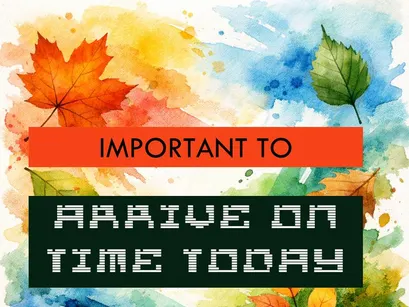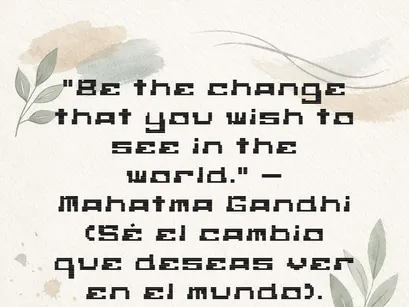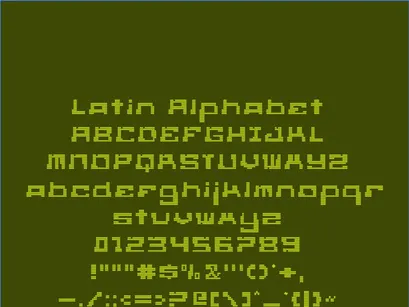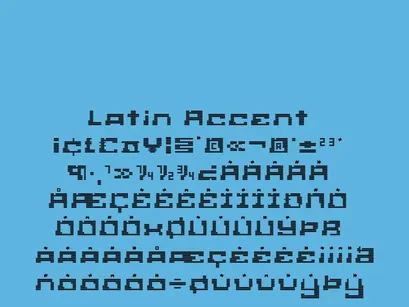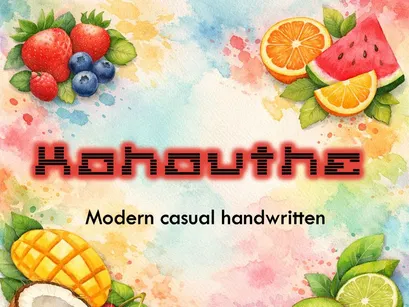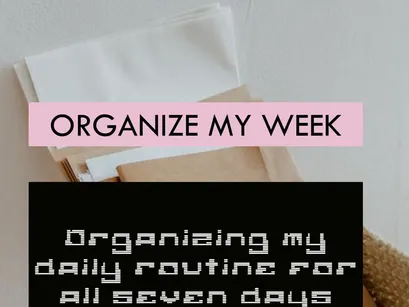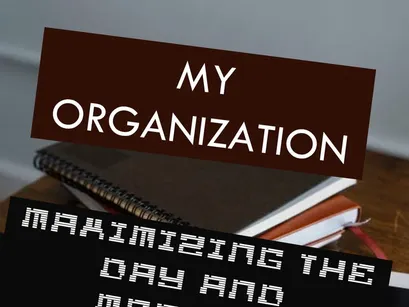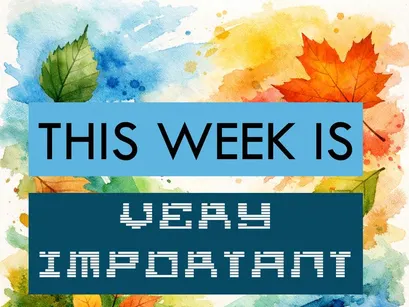
Kohouthe – Modern Casual Handwritten Font (TTF)
Kohouthe is a modern, casual handwritten typeface with a blend of digital and artisanal qualities. Its square shapes and steady rhythm evoke a sense of both organization and creativity, making it ideal for projects that seek a balance between structure and a natural feel.
Perfect for planners, motivational quotes, artisanal branding, eco-friendly packaging, and contemporary digital content.